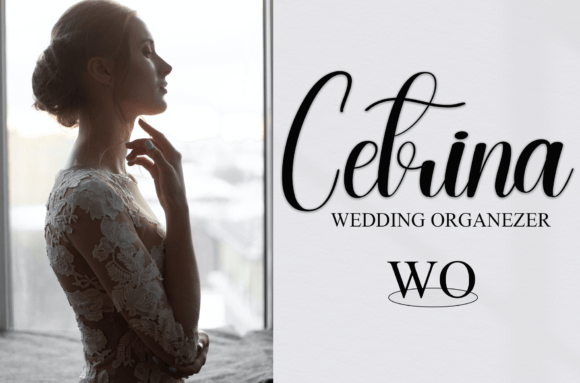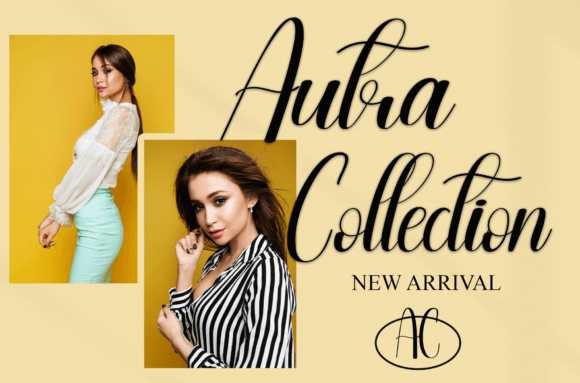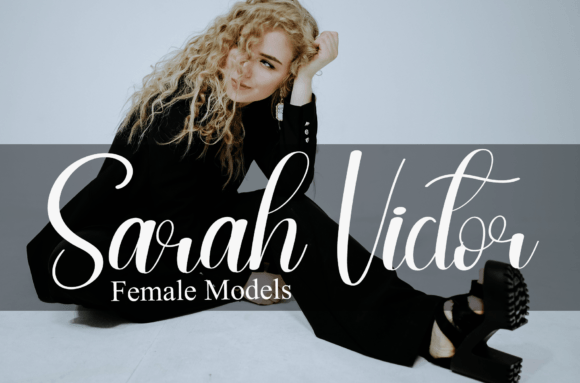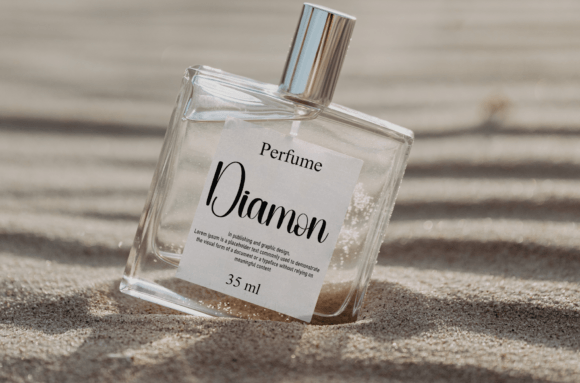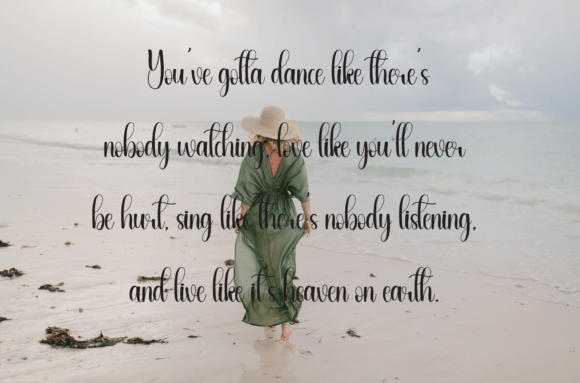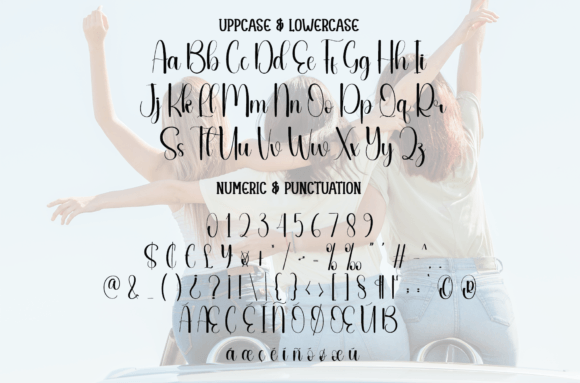
Introduction to Shindy Font
Shindy is a sweet and friendly handwritten font.
Fresh and neat, this font is ideal for writing wedding invitations, cards, or any other design that might need a fun touch .